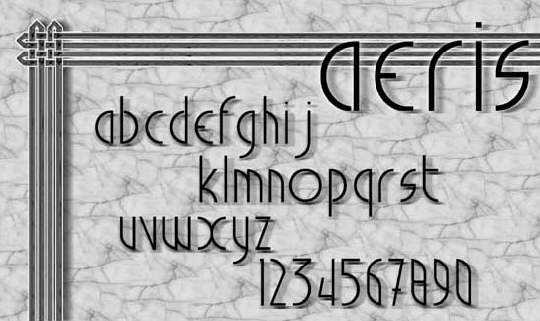
The typeface
presented below
is referred to as the 'Aeris' font. It is a simple san serif
(no
serifs) design, reminiscent of the Helvetica font. It is highlighted
with
a dropshadow, a marble background and a Celtic border.